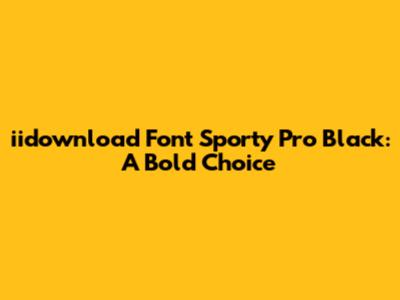
Hey everyone! Today, we're diving deep into the world of typography to talk about a font that's been catching a lot of eyes: iidownload Font Sporty Pro Black. This isn't just any font; it's a statement. If you're looking to add some serious punch and dynamism to your designs, especially when it comes to branding, headlines, or anything that needs to grab attention, then this font is definitely worth a closer look. We'll be exploring what makes it so special, where you can get your hands on it, and how you can best utilize its unique characteristics to make your projects shine. Get ready to understand why this font is a go-to for designers who aren't afraid to be bold.
Unpacking the Sporty Pro Black Vibe
So, what exactly gives iidownload Font Sporty Pro Black its distinctive edge? Let's break it down, guys. The 'Sporty' in its name isn't just for show; it immediately evokes a sense of energy, movement, and perhaps a touch of athletic prowess. When you look at the characters, you'll notice a strong, robust structure. The 'Pro' suggests a professional-grade quality, meaning it's likely well-crafted with attention to detail, offering good readability and versatility. And then there's 'Black' – this refers to its weight, a heavy, bold stroke that commands attention. This isn't a font for whispering; it's for making a declaration. Think of car decals, sports team logos, album covers for high-energy music, or even impactful advertising campaigns. The thick strokes ensure it stands out, even from a distance or in crowded visual layouts. It's designed to be seen and remembered, carrying a confident and assertive personality.
The Design Characteristics You Need to Know
When we talk about the design characteristics of iidownload Font Sporty Pro Black, we're really getting into the nitty-gritty of what makes it tick. The bold weight is, of course, the most prominent feature. We're talking about thick, substantial strokes that give each letter a powerful presence. This isn't subtle; it's designed to dominate the space it occupies. But it's not just about being thick. Look closely, and you'll see how the curves and terminals are handled. Often, sporty fonts incorporate dynamic angles or slightly condensed forms to enhance the feeling of speed and agility. While 'Sporty Pro Black' leans heavily on its boldness, it likely maintains a certain clarity. Professional-grade fonts, as the 'Pro' suggests, are usually engineered for legibility, even in their heavier weights. This means the counters (the enclosed or partially enclosed negative space in letters like 'o' or 'p') are probably well-proportioned, and the x-height is balanced to prevent the letters from feeling cramped or illegible. You might also find unique stylistic alternates or ligatures that add flair, though the primary appeal here is its sheer visual impact. The overall impression is one of strength, dynamism, and undeniable impact, making it perfect for situations where you need your text to be a visual anchor. It’s the kind of font that feels at home on a race car, a skateboard deck, or a powerful movie poster – anywhere that requires a visual equivalent of a deep, resonant sound.
Creative Applications for Sporty Pro Black
This is where the fun really begins, guys! Thinking about how to actually use iidownload Font Sporty Pro Black in your projects. Given its bold and impactful nature, this font is a powerhouse for headlines, titles, and any text that needs to be the absolute star of the show. Imagine it on the cover of a magazine focused on extreme sports, or a poster for a high-octane action movie. It’s perfect for branding that wants to convey strength, speed, and modernity. Think about sportswear brands, automotive companies, or even tech startups that want to project an image of innovation and forward momentum. Its chunkiness makes it highly legible even at smaller sizes when used for short bursts of text, like a call-to-action button or a key feature highlight on a product page. Don't shy away from using it for t-shirt designs or merchandise – it translates incredibly well to physical products. For web design, a few strategically placed bold headlines in Sporty Pro Black can anchor a page and guide the user's eye. However, due to its weight, it's generally not recommended for body copy or large blocks of text, as it can become overwhelming and difficult to read over extended periods. Instead, pair it with a more neutral, legible sans-serif or serif font for supporting text to create a balanced and dynamic visual hierarchy. The contrast between the bold, assertive Sporty Pro Black and a simpler typeface can be incredibly effective.
Making Headlines Pop with Font Sporty Pro Black
When it comes to making your headlines absolutely pop, iidownload Font Sporty Pro Black is your secret weapon. This font isn't subtle, and that's precisely its strength when you need immediate impact. Think about the goal of a headline: to grab attention, convey the core message quickly, and entice the reader to learn more. Sporty Pro Black, with its substantial weight and energetic feel, does all of this with gusto. Picture it in all caps for maximum impact, or perhaps using title case for a slightly more refined but still powerful look. The boldness ensures it cuts through visual clutter, making it ideal for everything from newspaper front pages to website banners. If you're designing a flyer for a concert or a special event, a headline set in Sporty Pro Black will immediately communicate excitement and importance. For branding, using this font for your main tagline or company name can establish a strong, memorable identity. It conveys confidence and a no-nonsense attitude. Don't be afraid to experiment with color, either. While black is its name, Sporty Pro Black can look incredible in vibrant hues that further amplify its dynamic personality. Just remember that its power lies in its presence, so use it judiciously for maximum effect. A well-placed, bold headline can be the difference between a reader stopping to engage or scrolling right past.
Alternatives and Similar Fonts
While iidownload Font Sporty Pro Black is a fantastic choice, it's always smart to have a few alternatives up your sleeve, right? Sometimes you might be looking for something with a slightly different feel, or perhaps the licensing for Sporty Pro Black doesn't quite fit your needs. If you love the bold, impactful vibe but want a bit more sharpness or a different stylistic twist, you could explore fonts like Bebas Neue (though it's usually lighter, variations exist), Impact (a classic choice for condensed boldness), or Oswald. These fonts often share that condensed, attention-grabbing quality. For a more rounded, sporty feel, you might look into fonts like Anton or even some of the more robust condensed sans-serifs from foundries like Commercial Type or Klim Type Foundry, although these might lean towards a less 'black' weight. The key is to identify the core characteristics you love about Sporty Pro Black – is it the extreme boldness, the condensed width, the energetic feel, or a combination of these? Once you know that, you can search font libraries using those descriptors. Many foundries offer